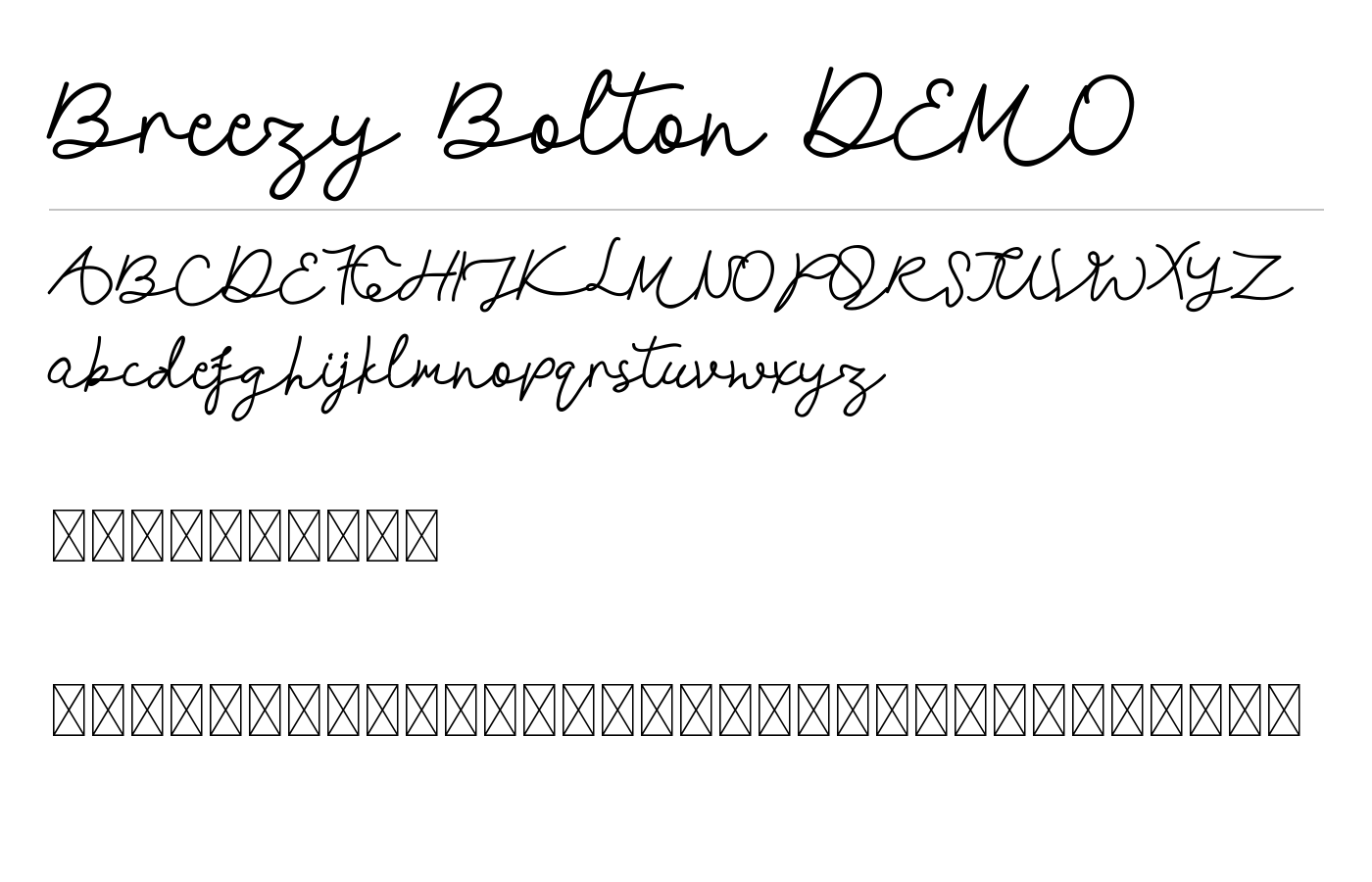
Breezy Bolton DEMO is a delicate, handwritten script font that brings a personal and artistic touch to any design. Its light strokes and flowing, playful letterforms create an approachable yet elegant feel, perfect for casual branding, invitations, and creative projects where a warm, human touch is desired. This font works beautifully in headlines and logos, adding charm and personality without overwhelming the design.
Breezy Bolton DEMO Font
About Breezy Bolton DEMO Font
| Font family | Breezy Bolton DEMO Font |
| Designer | Yasri |